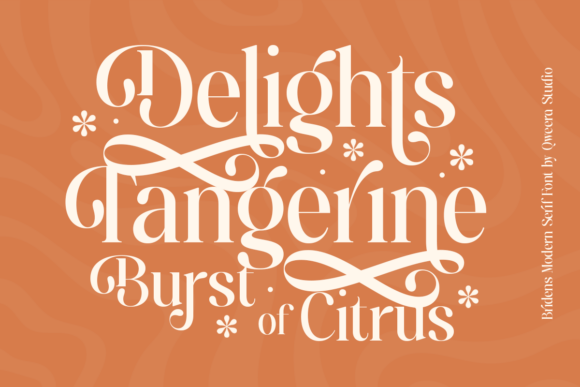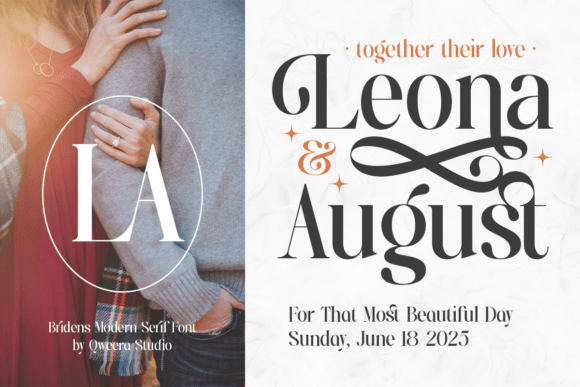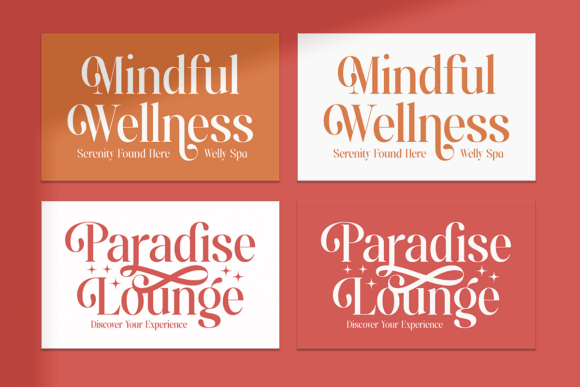
The Perfect Blend of Sophistication and Style
Have you ever stared at a blank canvas, eager to bring your creative vision to life, only to be held back by the perfect font? That moment of frustration is a familiar one for many designers. But what if you had the perfect tool at your disposal – a font that exudes elegance, sophistication, and style?
Enter Bridens Font, a modern serif display font designed to make your designs stand out while maintaining a timeless appeal. With its stylish alternates and ligatures, Bridens Font offers endless creative possibilities for branding, editorial design, web typography, and more. Whether you’re a seasoned designer or just starting out, Bridens Font is the ultimate choice for unleashing your creativity and elevating your projects to the next level.
As a versatile and modern typeface, Bridens Font is a valuable addition to any designer’s toolkit, providing a bold and elegant touch that’s sure to leave a lasting impression.
Briden’s Font Key Features
- Unique Characteristic: The font features a unique blend of modern and vintage elements, with intricate details and ornate flourishes.
- Font Family: The font family includes multiple styles, including Regular, Italic, Bold, and Bold Italic, to provide designers with flexibility and versatility.
Bridens Font Review
As a designer, I recently had the chance to work with Bridens Font, and I’m here to give you my honest review.
- Unique Character: Bridens Font has a distinct, hand-drawn feel that sets it apart from more generic fonts.
- Expressive Flourishes: The font’s decorative elements add a touch of personality to any design, making it perfect for creative projects.
- Good Legibility: Despite its ornate appearance, Bridens Font is surprisingly easy to read, even at smaller sizes.
- Limited Font Weights: Bridens Font only comes in a few weights, which may limit its versatility in certain design situations.
- Not Ideal for Body Text: While Bridens Font works well for headings and titles, it’s not the best choice for large blocks of body text.
- May Not Translate Well to Small Sizes: As with any decorative font, Bridens Font may become pixelated or lose its charm when scaled down too small.
Bridens Font is a charming, expressive font that’s perfect for creative projects or designs that require a touch of personality. While it has some limitations, its unique character and good legibility make it a solid choice for designers looking to add some flair to their work.
Tips: Use Briden’s Font for headings and titles to add a touch of elegance to your design. Experiment with different font sizes and colors to create visual interest.
Tips: Use Briden’s Font to create unique and eye-catching typography. Experiment with layer styles and effects to add depth and interest to your design.
Tips: Use Briden’s Font to add a touch of sophistication to your presentations and documents. Experiment with different font sizes and colors to create visual interest.
Briden’s Font is perfect for:
Alternatives to Bridens Font
Playfair Display is a luxurious serif font that works well for titles, headings, and other prominent text. It’s perfect for creating a sense of elegance and sophistication in designs. It’s similar to Bridens Font in its high-end feel, but it’s more ornate and intricate.
When to use: Luxury brands, high-end products, and sophisticated designs.
Merriweather is a classic serif font that’s ideal for body text and long-form content. It’s clean, readable, and works well for a variety of designs. Compared to Bridens Font, Merriweather is more understated and traditional.